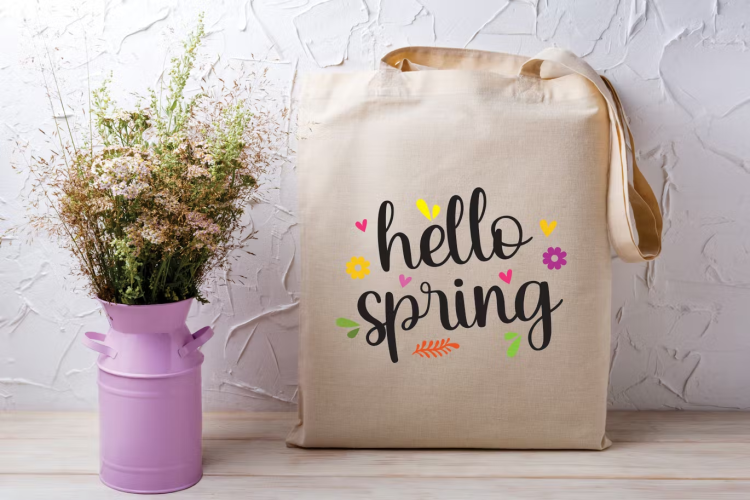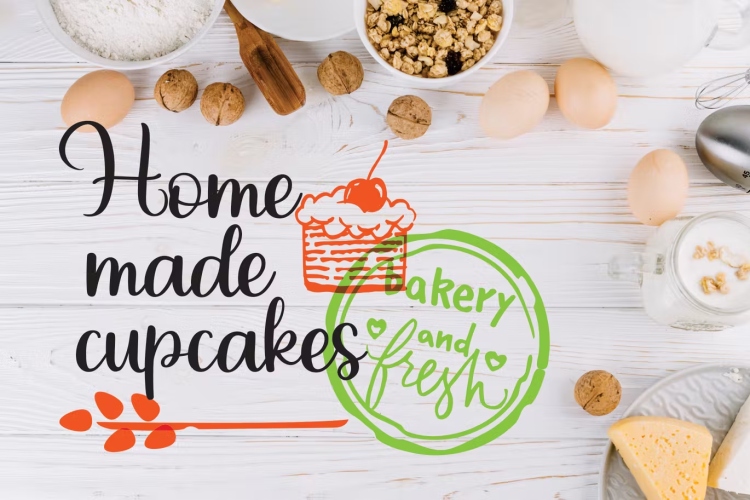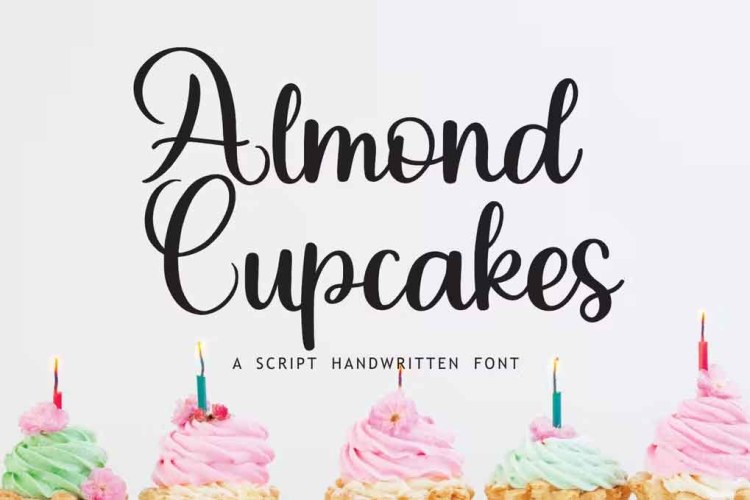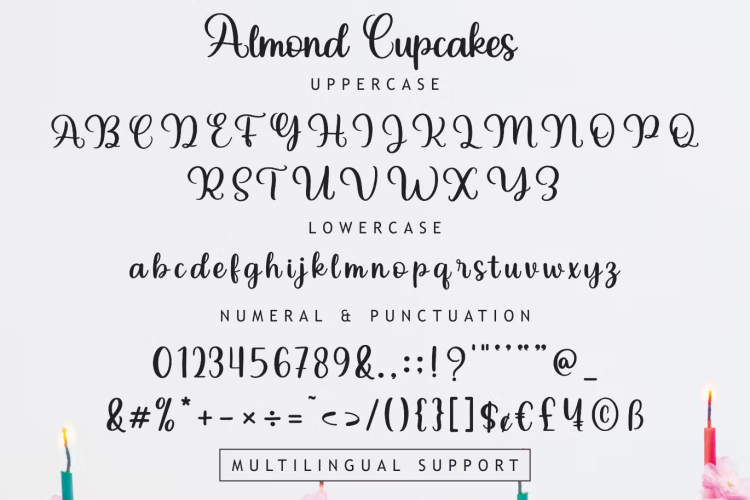
Almond Cupcakes Font
Almond Cupcakes is a script handwritten font. It is a quirky and natural hand-drawn font. Together or apart, these fonts are ideal for adding a chic and cheery touch to…
Character set · 242 glyphs
Almond Cupcakes is a script handwritten font. It is a quirky and natural hand-drawn font. Together or apart, these fonts are ideal for adding a chic and cheery touch to your crafts.
This font is ideal for crafting, branding, and decorates your any project. These fonts are perfect for wedding invitations or your blog. Also with their help, you can create a logo or beautiful frame for your home. Or just use it for your business, book covers, stationery, marketing, magazines, and more. Fall in love with its incredibly versatile style and use it to create spectacular designs!
Where Almond Cupcakes Font works best
Almond Cupcakes Font brings a personal, handwritten warmth to invitations, menus and place cards.
Craft brands — coffee, cosmetics, bakery — use scripts like Almond Cupcakes Font for signature-style logos and labels.
Pair Almond Cupcakes Font with a plain sans for quotes, stories and Pinterest pins that feel handmade.
What is Almond Cupcakes Font good for?
Almond Cupcakes Font is a Script And Handwritten typeface tagged Branding, Editorial, Elegant, Handwritten. It works well for headlines, logos, posters, social media graphics and branding projects that need a distinctive script and handwritten look.